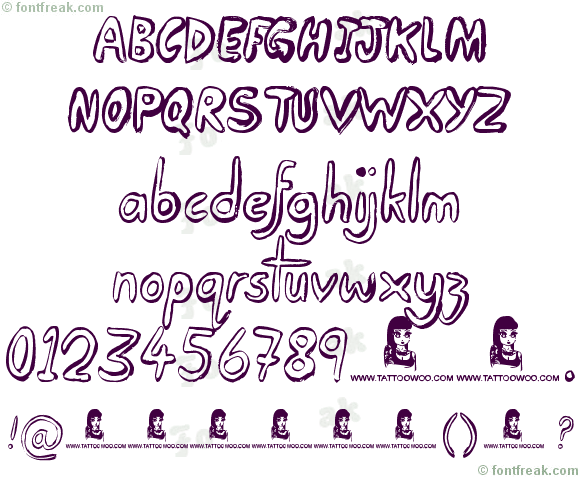
Taking Notice
Introducing the Taking Notice font by Jonathan S. Harris, a unique hand-drawn typeface that captures attention with its playful and informal style. As a decorative font, Taking Notice exudes a sense of warmth and creativity, making it a perfect choice for various design projects. The font features a medium stroke weight, providing a balanced contrast that enhances readability while maintaining its whimsical character. The spacing is thoughtfully designed, allowing each letter to breathe, and the decorative elements—such as rounded edges and playful curves—add an inviting touch that draws in the viewer.
This versatile font is ideally suited for a range of use cases. It shines in wedding invitations, where its charming aesthetics can set a joyful tone for the celebration. Additionally, Taking Notice makes a striking impact on movie posters, lending an artistic flair that can convey the essence of the film. Restaurant menus can also benefit from its friendly appeal, helping to create a welcoming atmosphere for diners. Content creators will find it perfect for social media graphics, where eye-catching typography is essential for engagement.
What sets the Taking Notice font apart is its ability to convey personality while remaining versatile. Its hand-drawn quality provides a personal touch, making it a standout choice for anyone wanting to make a memorable impression. For those interested in enhancing their creative projects, the Taking Notice font free download is an opportunity not to be missed.